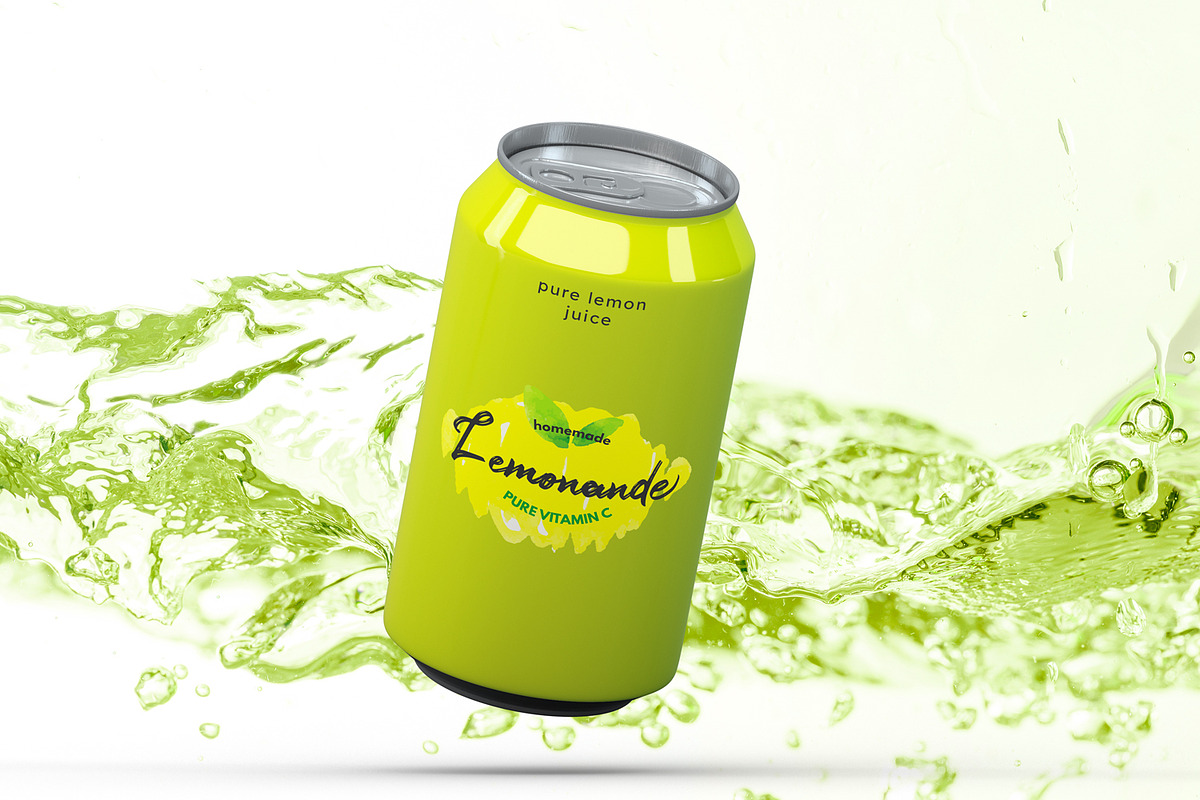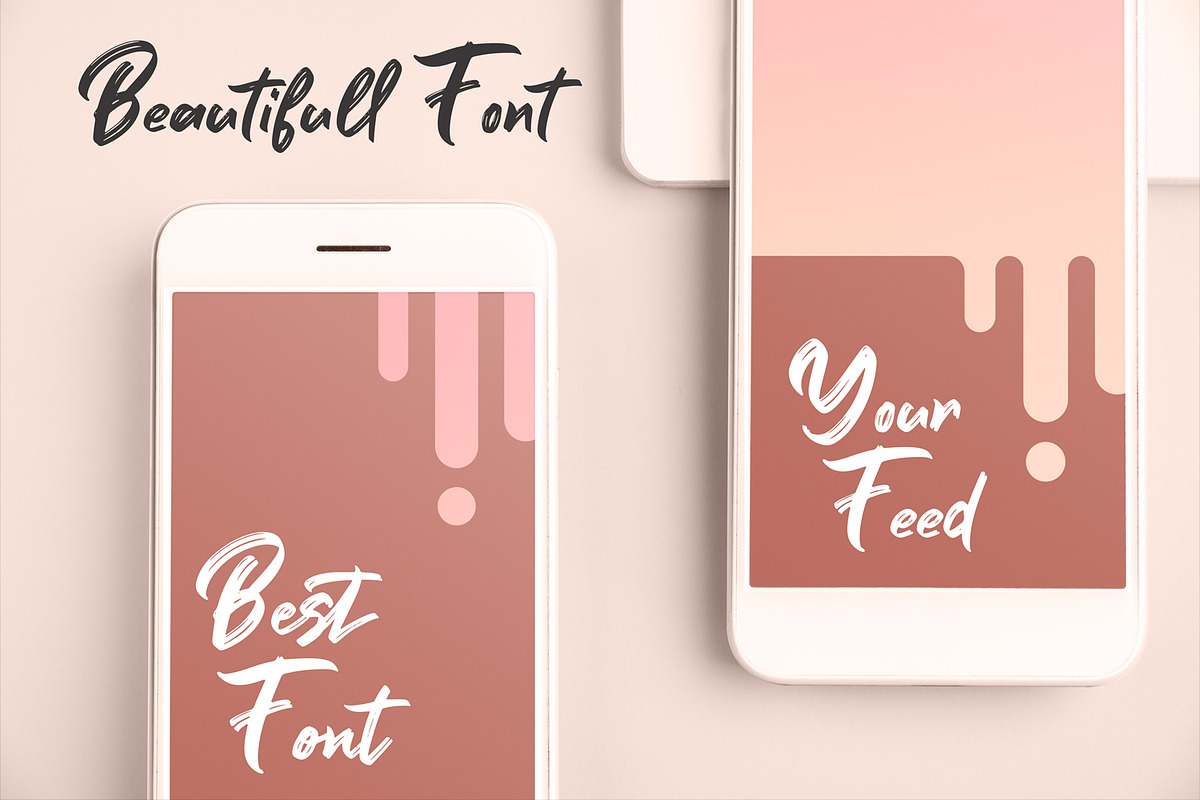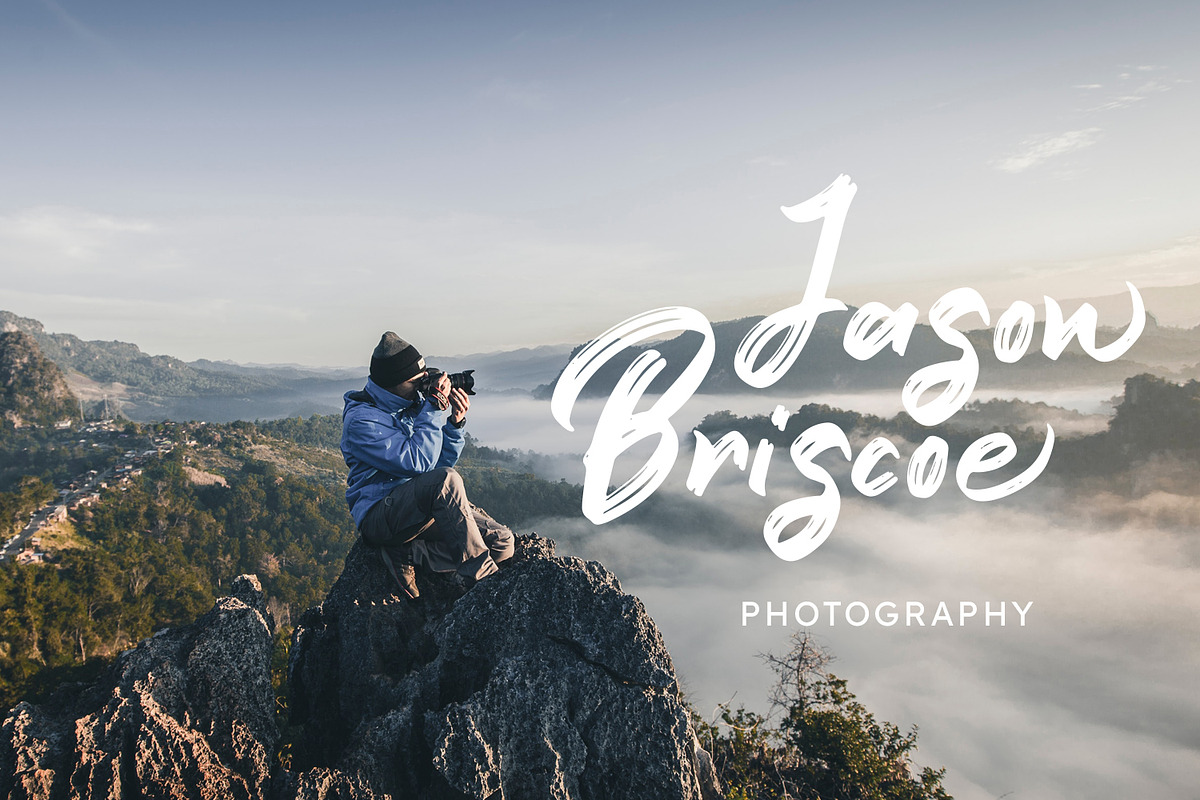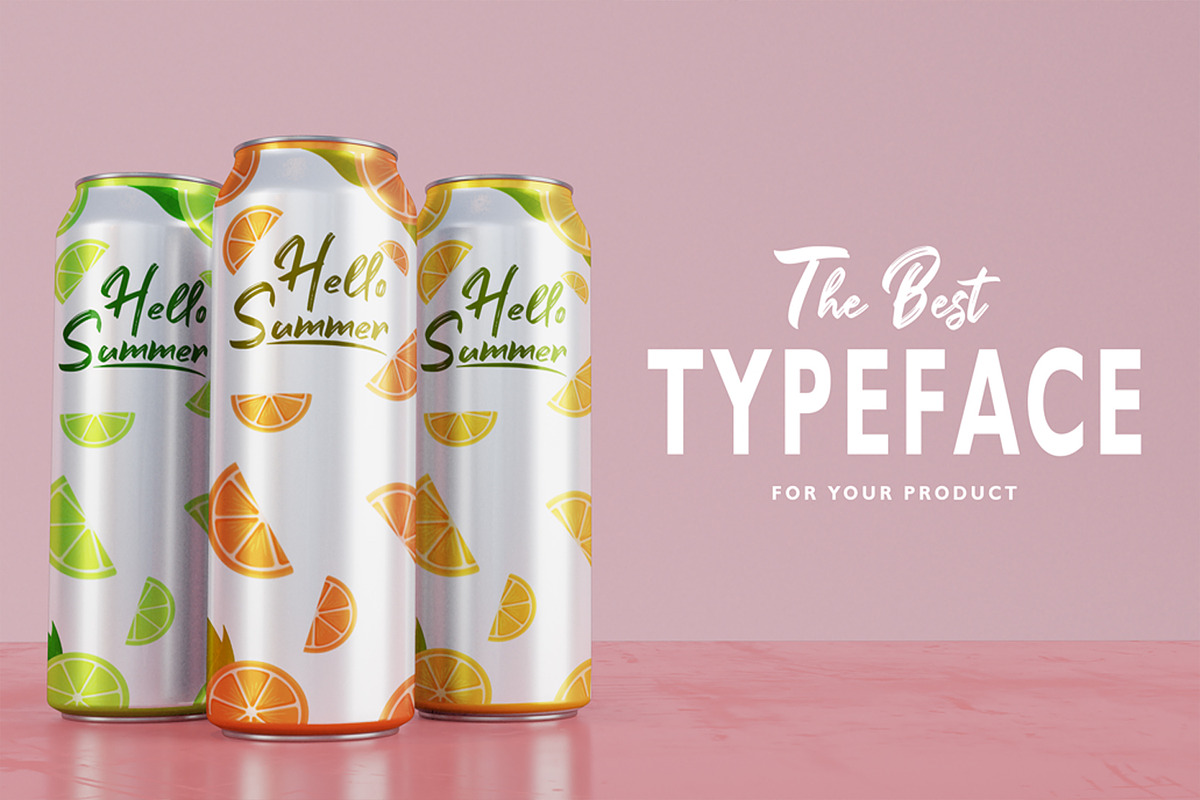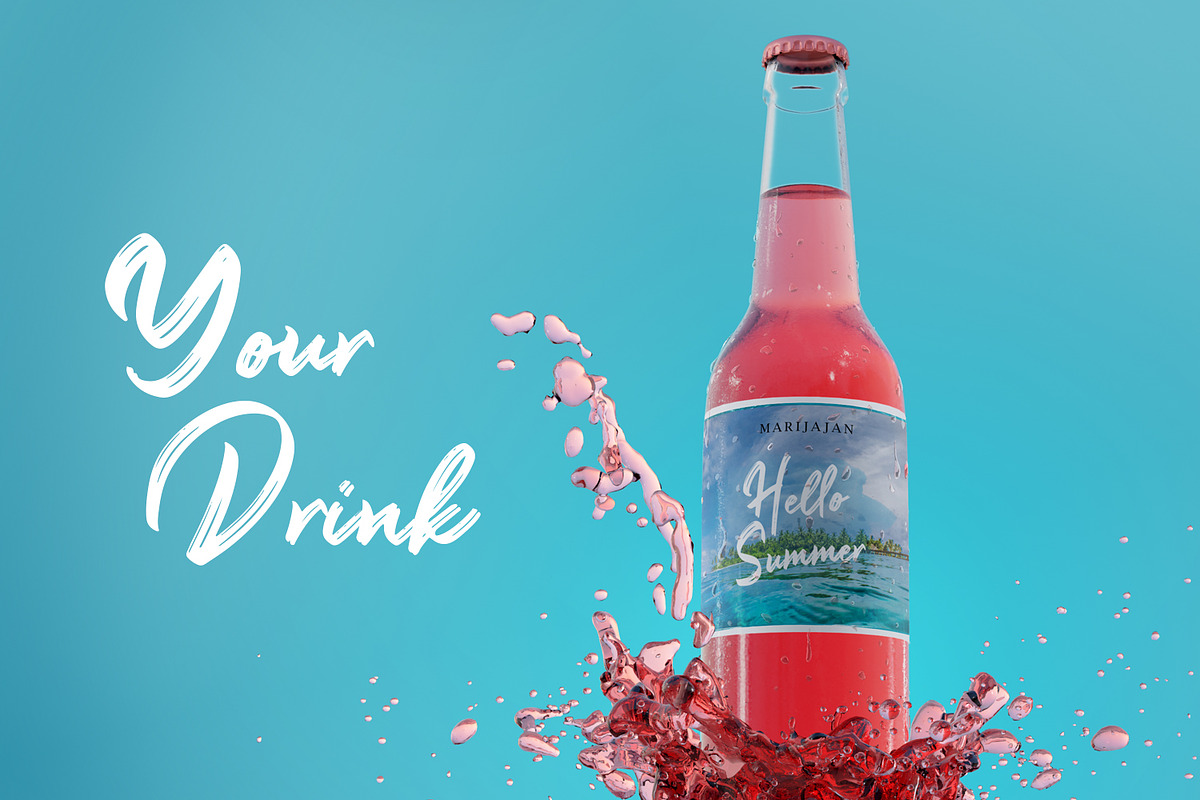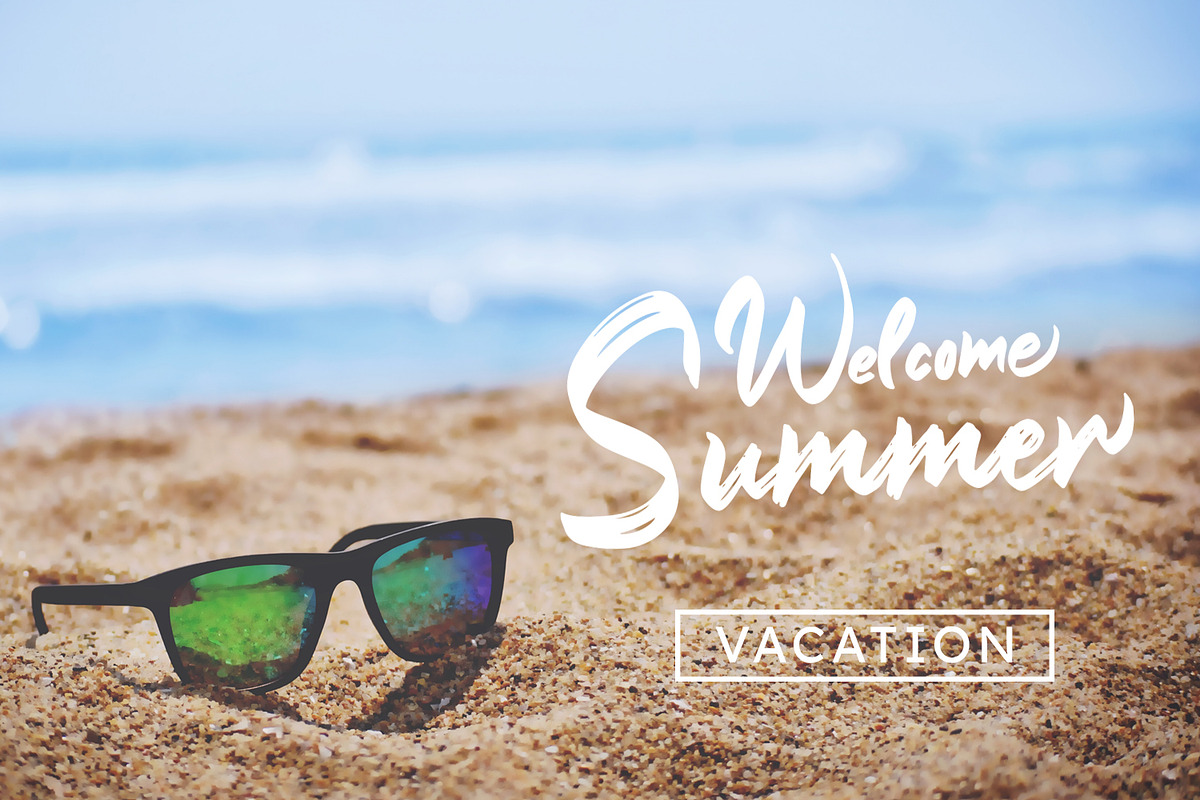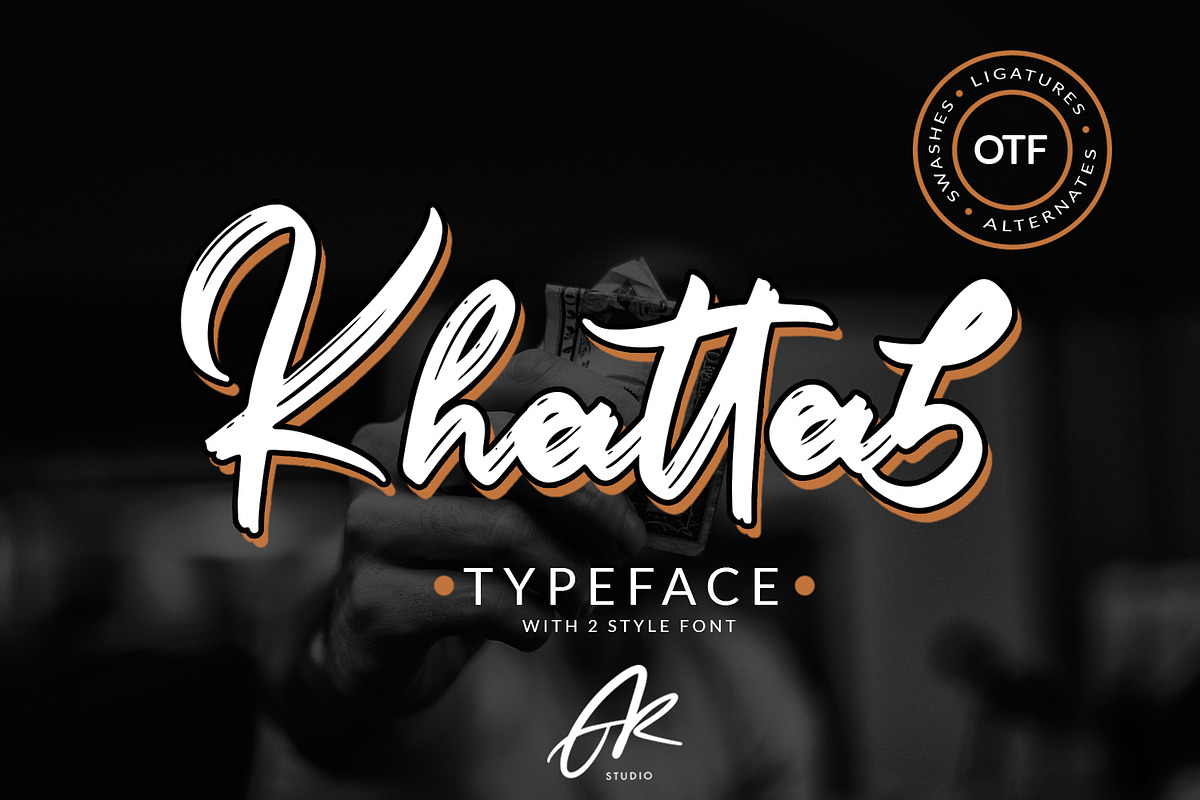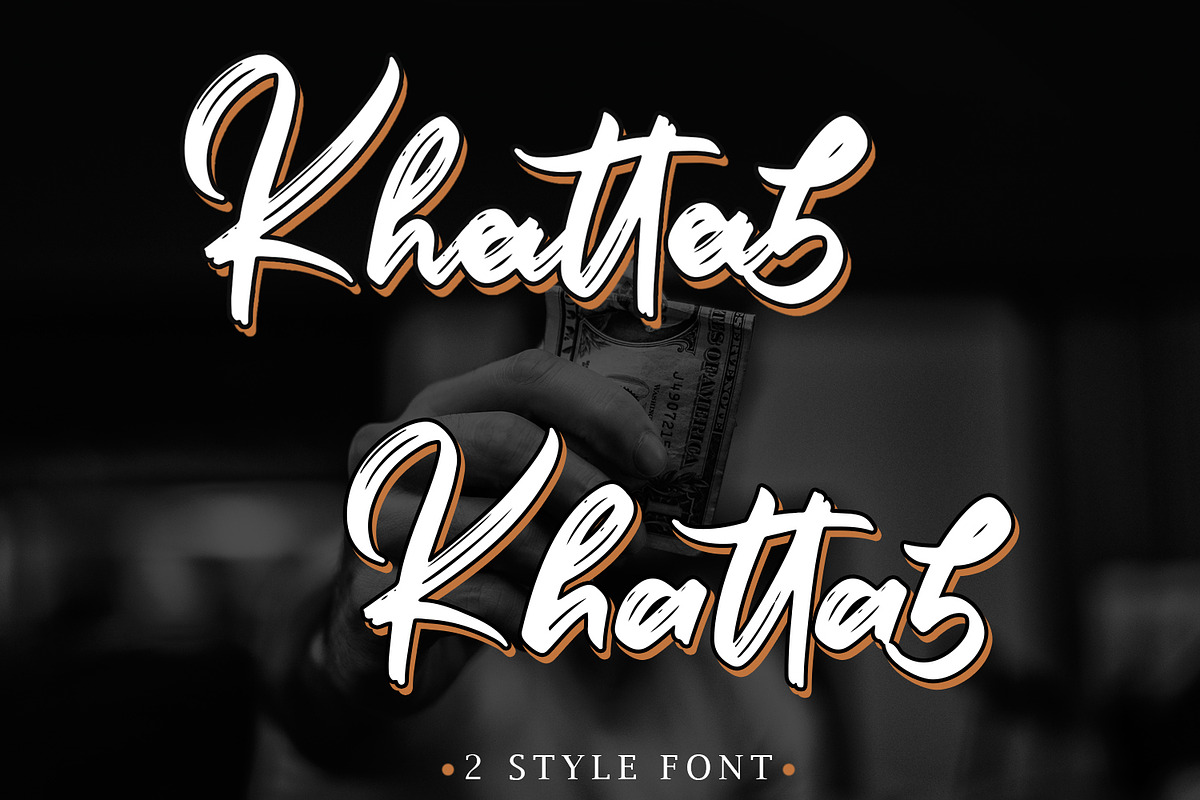
Khattab Brush Font | Font Duo
Khattab Brush Script Font is a font with distinctive handwritten characters perfect for branding projects, logos, wedding designs, media posts, advertisements, product packaging, product designs, labels, photography, watermarks, invitations, stationery, and any project who need handwritten dishes.
Khattab Brush Font | Font Duo by Arendxstudio fits naturally into Branding, posters, packaging, typography.